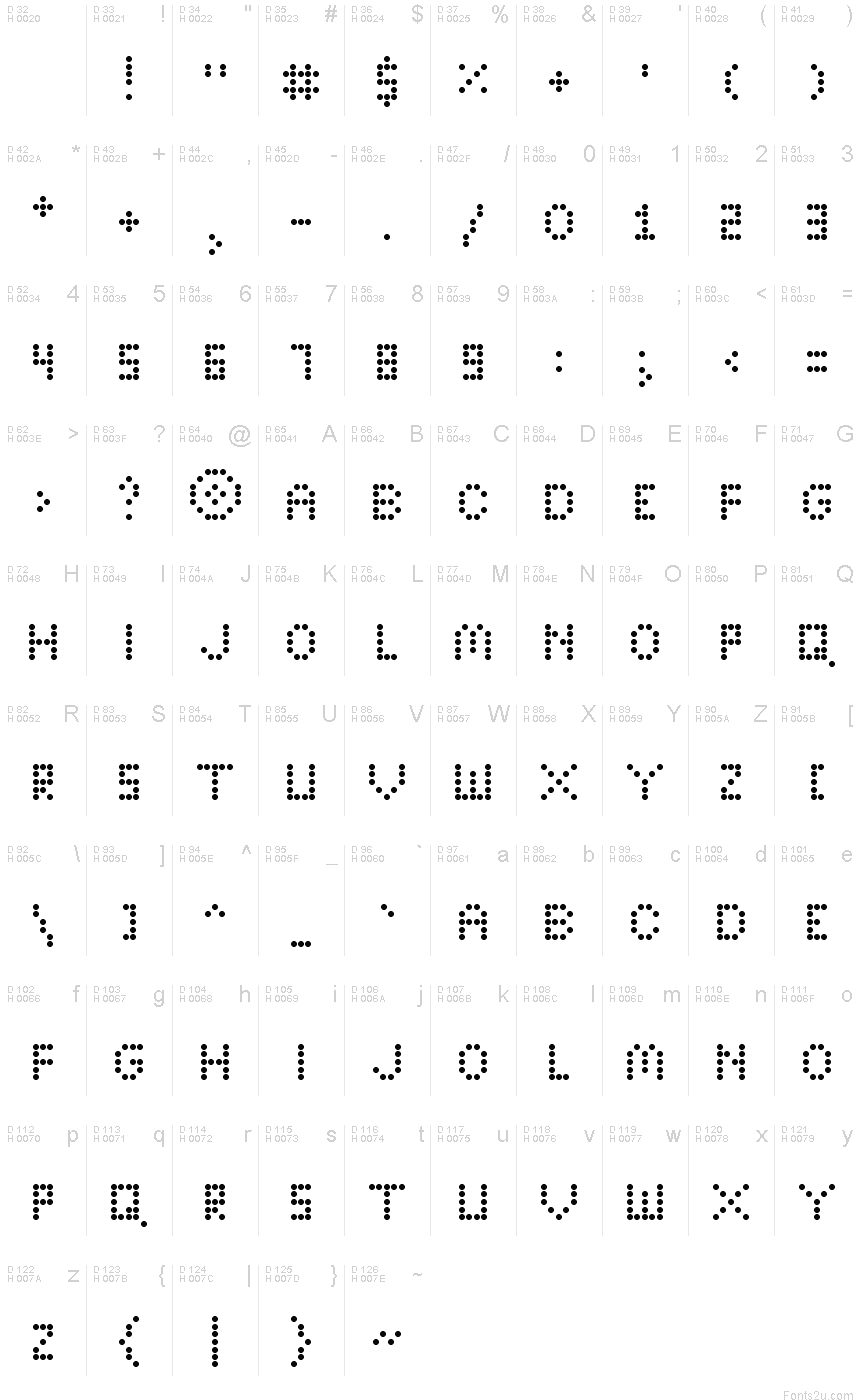
Bright Lights by supermattyb of FontStruct is a free dot-matrix pixel font with the rounded look of an LED marquee. Broad letters and generous gaps keep the circular lamp pattern airy.
It is strongest in event signage, music graphics, and arcade-inspired title cards, where the illuminated forms become part of the display concept. The repeated light pattern makes Bright Lights especially convincing for lively nightlife posters and venue branding.